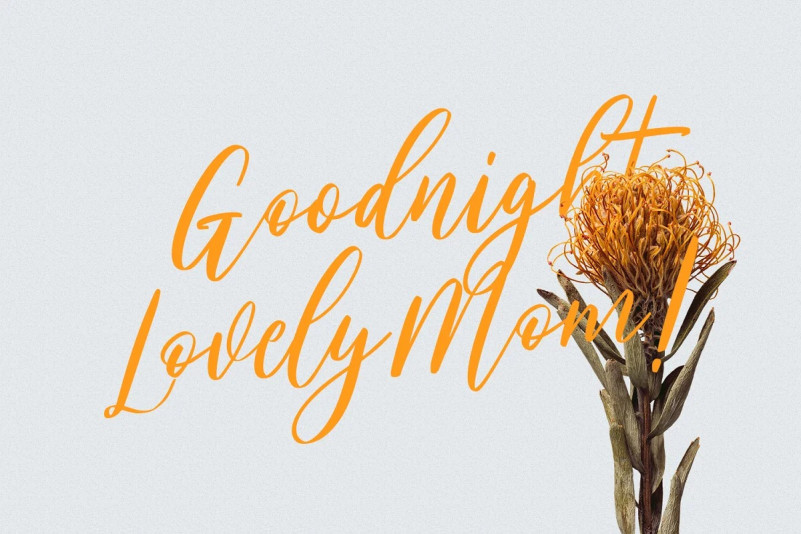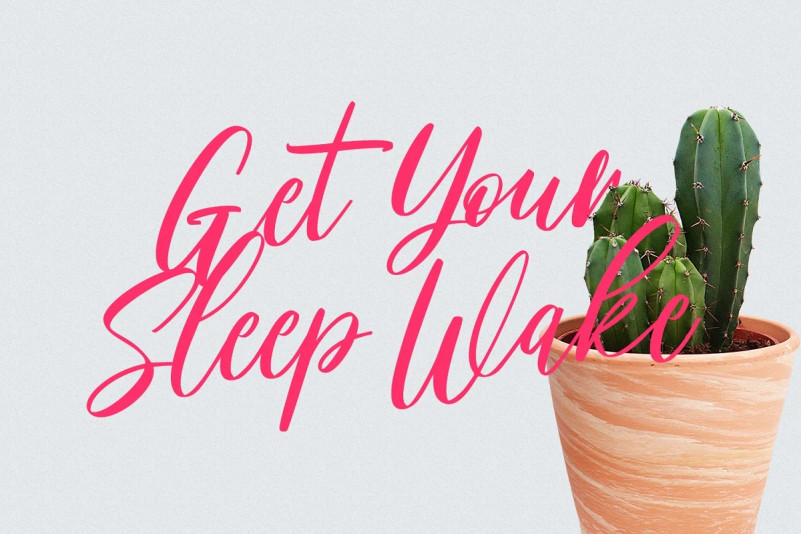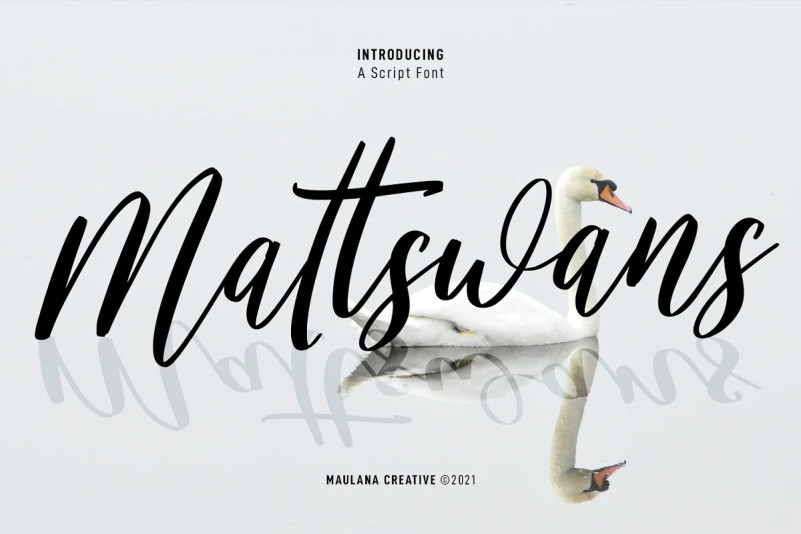
Mattswans Font
Mattswans Script Font is a fancy slant script font. With regular contrast stroke, fun character with a bit of ligatures and has a two files lowercase alternates. To give you an extra creative work. Mattswans font support multilingual more than 100+ language. This font is good for logo design, Social media, Movie Titles, Books Titles, a short text even a long text letter and good for your secondary text font with sans or serif. Make a stunning work with Mattswans font.